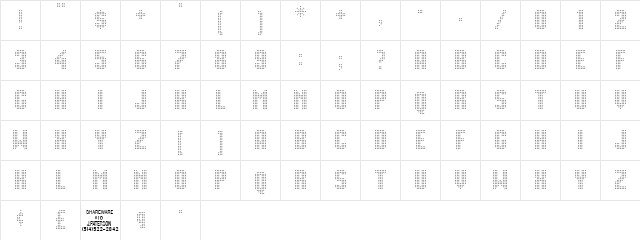
Movie Star Regular Font Preview
Movie Star Regular
Movie Star Regular Font Details
Design Context for Movie Star Typeface
Movie Star is a composed and adaptable typeface that performs quietly and consistently across a wide range of design contexts.